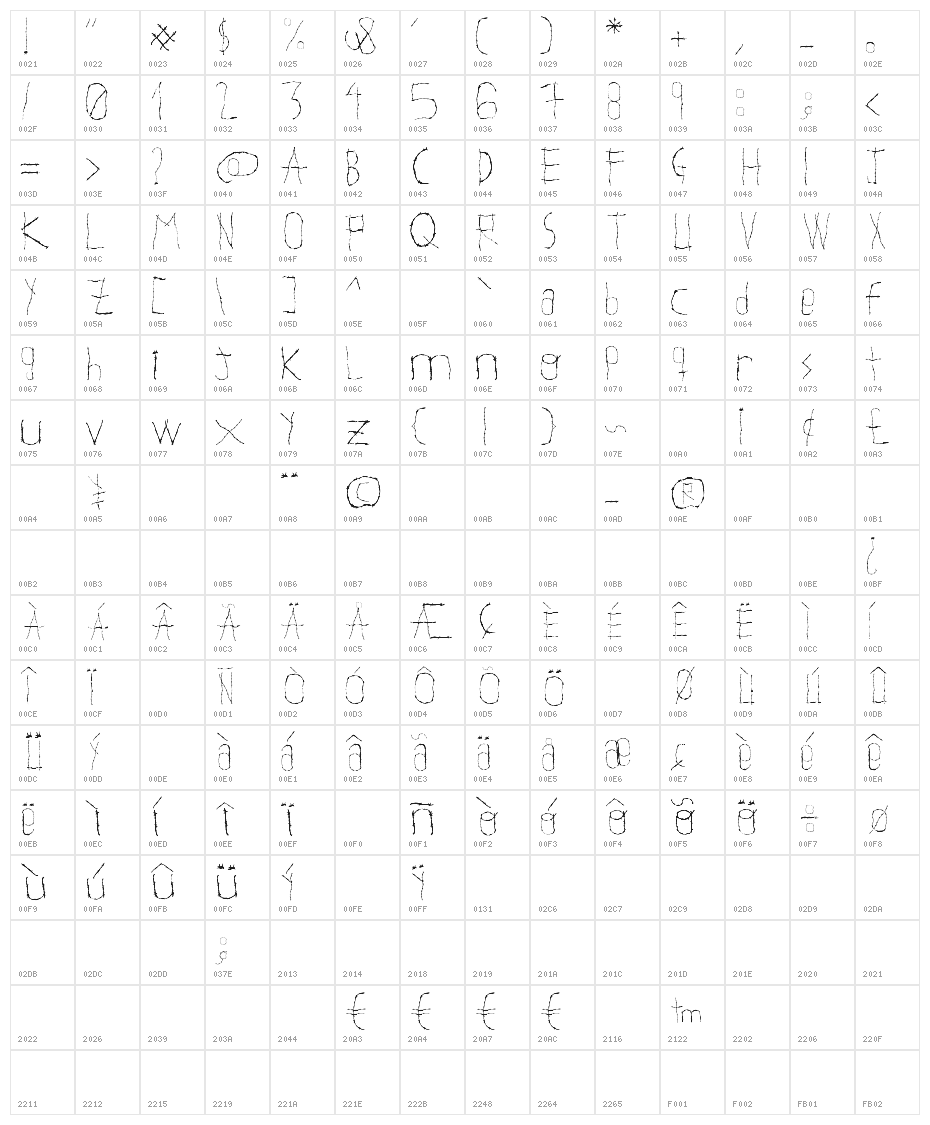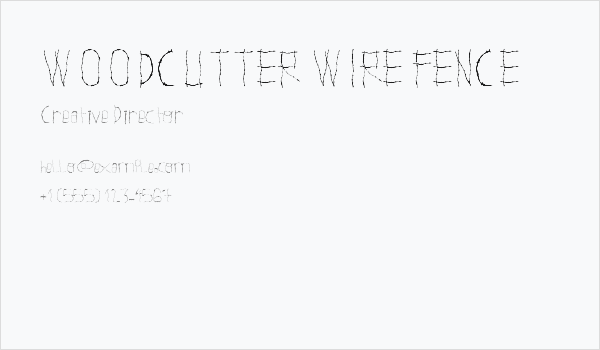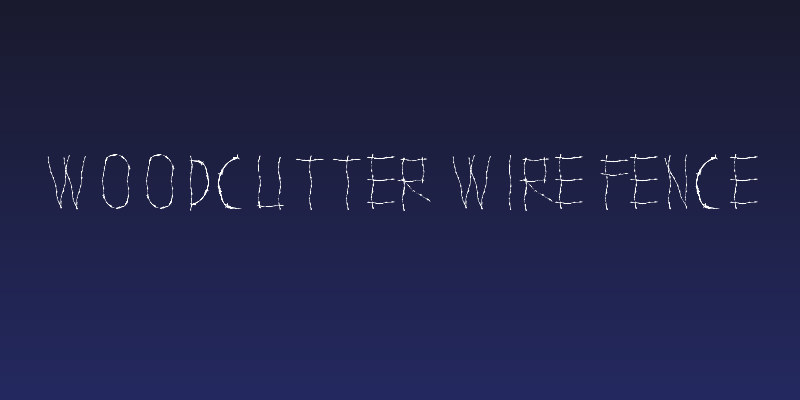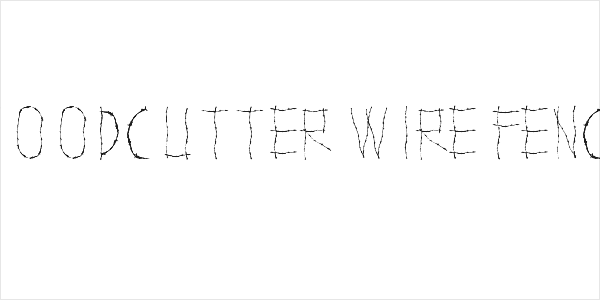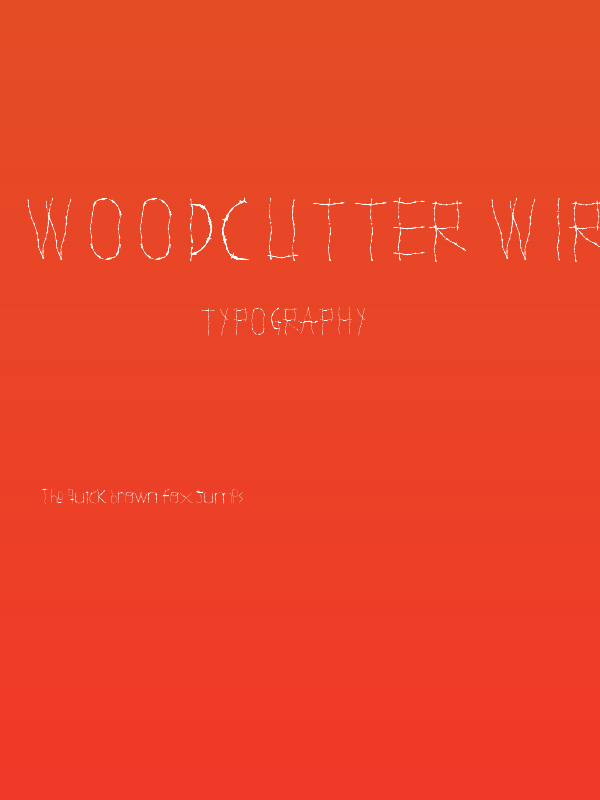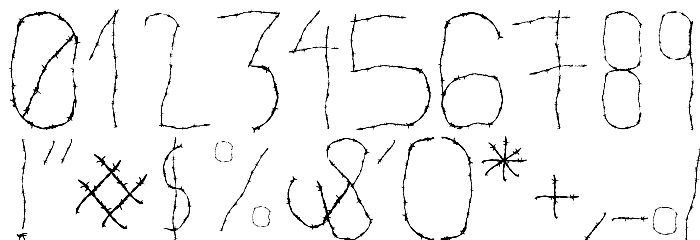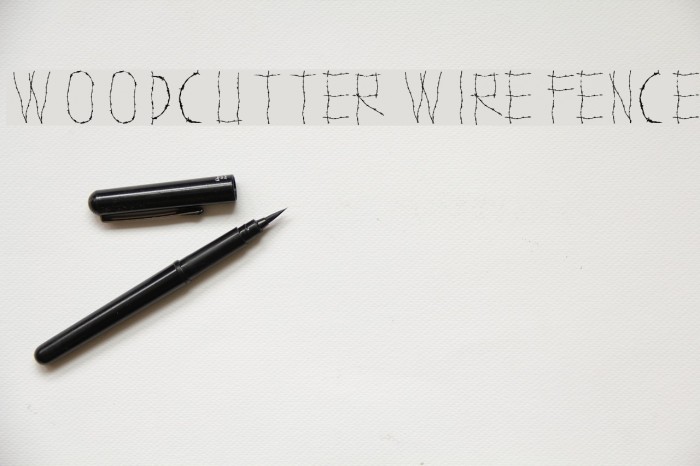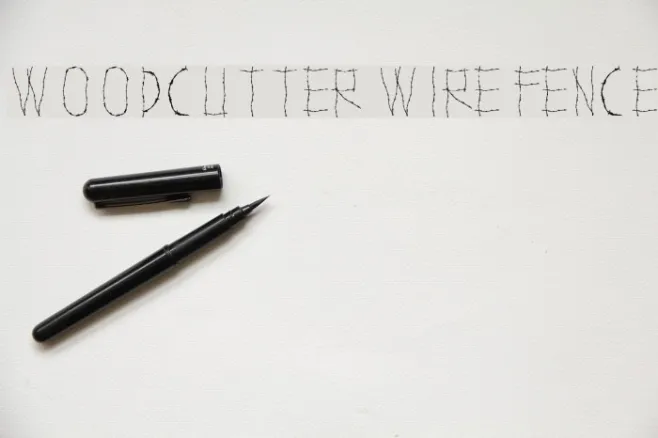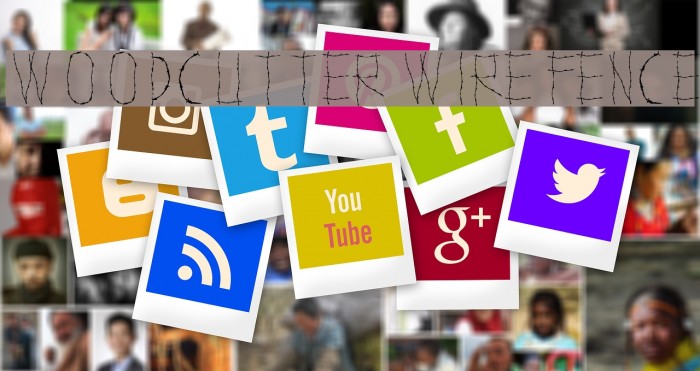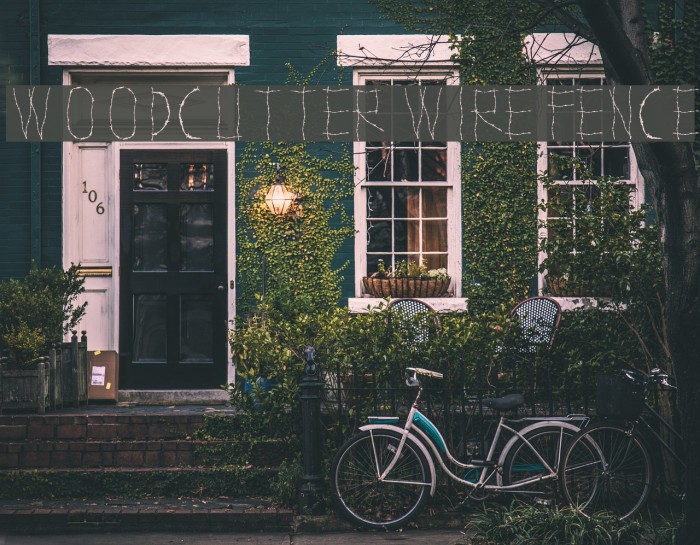
WOODCUTTER WIRE FENCE Font
WOODCUTTER WIRE FENCE Description
This font features a unique and rugged design, reminiscent of barbed wire or a rustic fence. The characters are crafted with a rough, hand-drawn aesthetic, giving them an edgy and unconventional appearance. Each letter and number is composed of lines that mimic the texture and irregularity of wire, creating a sense of movement and tension. The uppercase and lowercase letters maintain a consistent style, while the numerals and special characters follow the same thematic approach. This font stands out with its distinctive and bold look, making it ideal for projects that require an eye-catching and thematic typeface.
| Proposed Projects | Ideal for posters, album covers, themed event invitations, and any project needing a bold, rustic touch. |